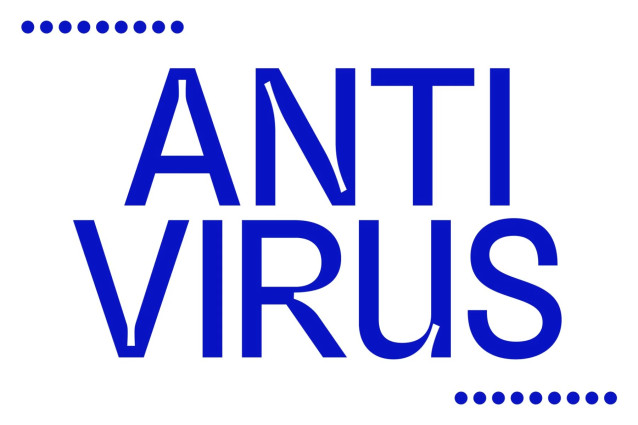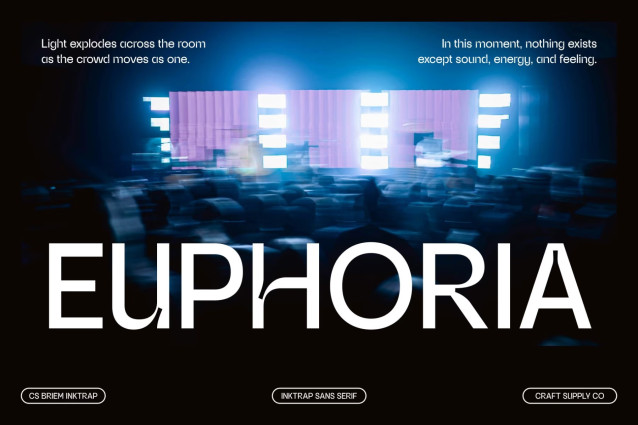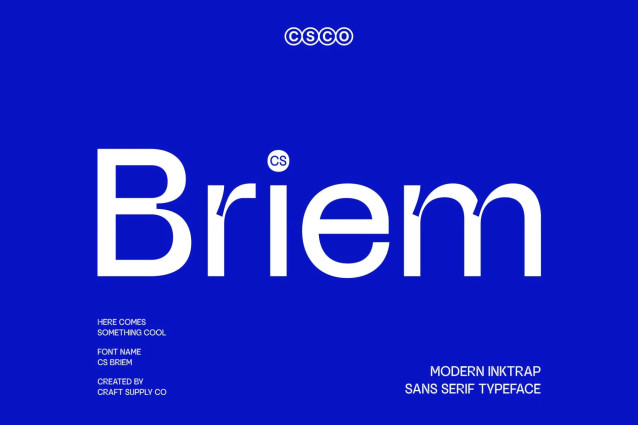
CS Briem – Inktrap Font
CS Briem – Modern Inktrap Sans Serif Font: Where Geometric Precision Meets Contemporary Clarity
Modern Inktrap Sans Serif with Professional Appeal
This is a modern inktrap sans serif font featuring clean geometric letterforms and distinctive inktrap details that enhance both visual character and optical readability. Its balanced proportions and precisely crafted structure create typography that feels refined, functional, and confidently modern, making it ideal for contemporary design applications.
Clean Design with Technology-Inspired Aesthetic
This font delivers a sleek and professional appearance with subtle inktrap cuts that add personality without compromising clarity. This thoughtful combination creates a sophisticated typeface that communicates innovation, efficiency, and precision perfect for digital-first brands and modern visual systems.